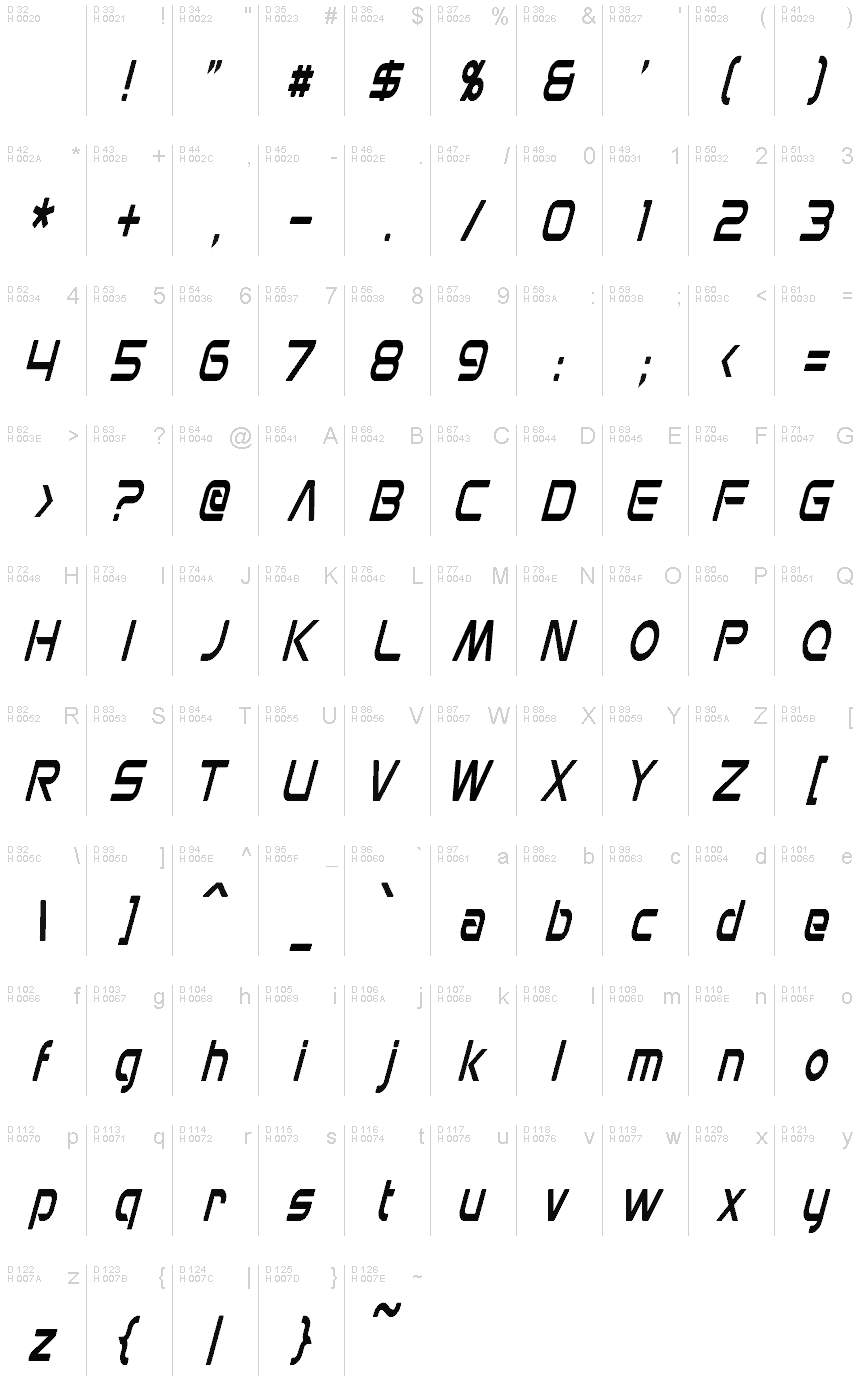
Mons Olympia Condensed Italic
Mons Olympia, a creation of designer Neale Davidson of Pixel Sagas, is a captivating display font that emanates a retro-futuristic allure. Inspired by the classic lettering of Walt Disney's iconic Space Mountain ride, this condensed italic typeface exudes a sense of cosmic adventure and technological wonder. With its sleek, streamlined curves and sharp, angular terminals, Mons Olympia conjures visions of sleek spacecraft, gleaming cityscapes, and the boundless expanse of the cosmos.
The font's versatility shines through its comprehensive character set, including full alphanumerics, extended punctuation, and the Euro symbol. Its condensed width lends itself to impactful headlines, eye-catching logos, and dynamic branding applications, where it can captivate audiences with its distinctive retro-futuristic aesthetic.